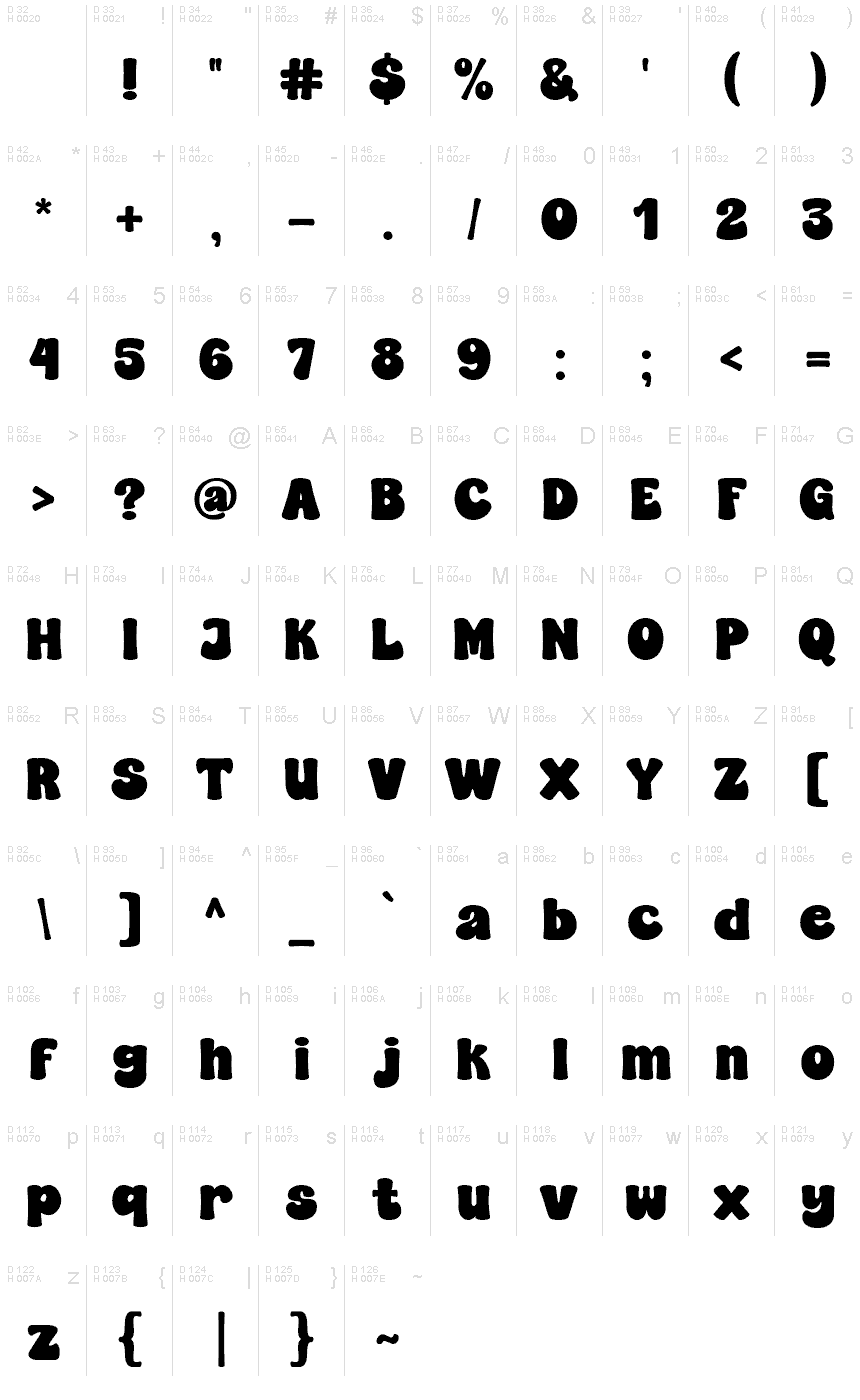
Super Peanut
Super Peanut font by fsuarez913 is a cartoon display font with an inviting, friendly nature. Its chunky, retro-inspired design feels warm, rounded, and approachable all to present a bold joyful look. The seamless letterforms are perfect for creative designs that aim to entertain audiences and keep them glued in front of artworks.
Use this free display font for posters, titles, Google displays ads, tradeshow bumper graphics, books covers for kids’ stories, sticker prints on Etsy shops products images, Instagram highlight cover photo text overlays or icons styled with glyphs’ combination!